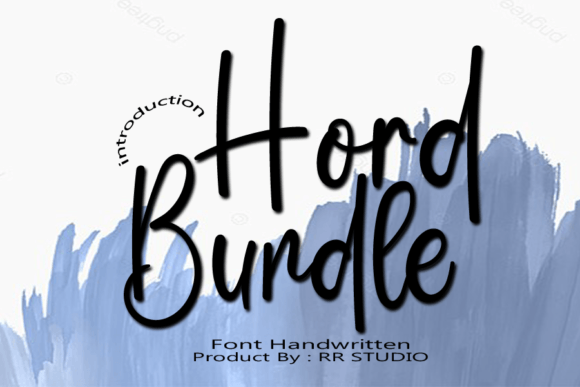
About Hord Bundle Font
Introducing the “Hord Bundle,” a classic and simple handwritten script that captures a random and free-spirited style. This versatile font is well-suited for a variety of applications, making it a great choice for logotypes, headline fonts, corporate identity, brand identity, apparel, posters, music, movies, games, magazines, books, comics, cartoons, YouTube, Instagram, websites, and any other creative design projects.
The classic and simple design of “Hord Bundle” makes it a timeless choice for logotypes and headline fonts. Its versatility allows it to adapt to different visual identities, giving your brand or project a distinctive and memorable appearance.
In the realm of corporate and brand identity, “Hord Bundle” adds a touch of uniqueness. The free-spirited style of the font can convey a sense of creativity and individuality, making it an ideal choice for companies or projects with a bold and unconventional brand image.
For the apparel industry, “Hord Bundle” becomes a stylish and casual option. Its handwritten script adds a personal touch to clothing designs, making it suitable for a range of fashion applications.
In posters, music, movies, and games, “Hord Bundle” contributes to a dynamic and expressive visual language. Its random and free style can capture the essence of different creative genres, enhancing the overall design impact.
Magazines, books, comics, and cartoons benefit from the playful and versatile nature of “Hord Bundle.” The font brings a sense of spontaneity to the visual storytelling, making it engaging and visually interesting.
For digital platforms like YouTube, Instagram, and websites, “Hord Bundle” becomes a captivating choice for captions, titles, and other text elements. Its distinctive style adds a touch of personality to your online presence.
In summary, the “Hord Bundle” is more than just a font; it’s a creative asset that can enhance a wide range of design projects. Whether you’re working on branding, apparel, posters, or digital content, this classic and simple handwritten script brings a unique and free-spirited charm to your creative endeavors.